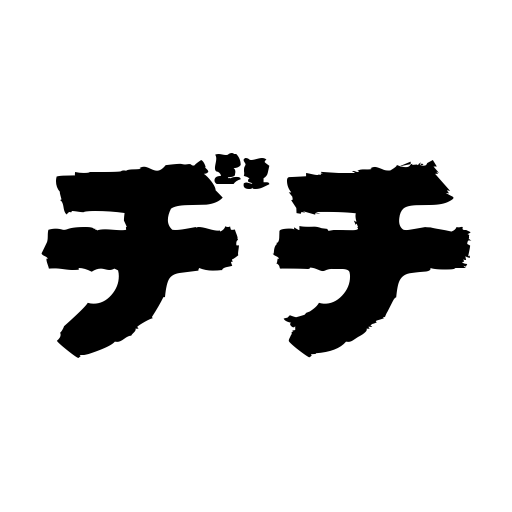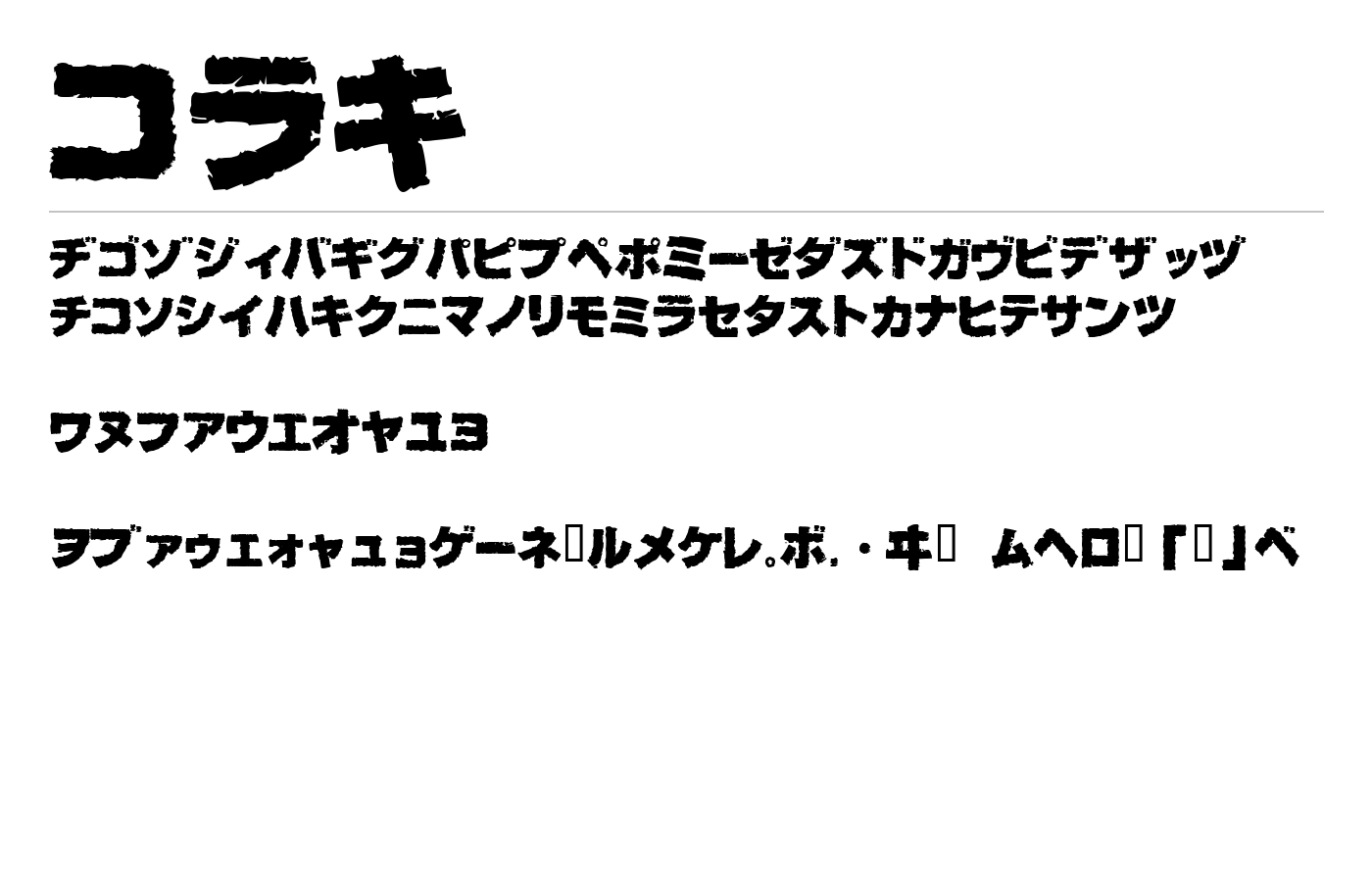
Bog Font is a bold, heavy-weight sans serif typeface with a rough, textured appearance that gives it a hand-stamped or distressed feel. Its wide, blocky character shapes combined with the irregular edges create a striking, energetic look suited for impactful headlines, posters, or designs seeking a rugged, vintage, or industrial vibe. This font works well where a strong, attention-grabbing style is needed to convey boldness and uniqueness.
bog Font